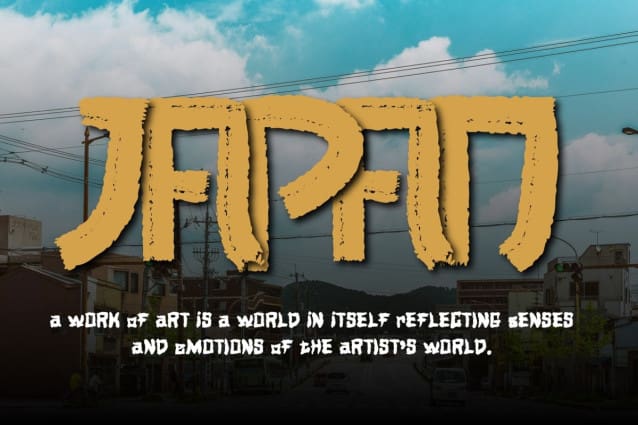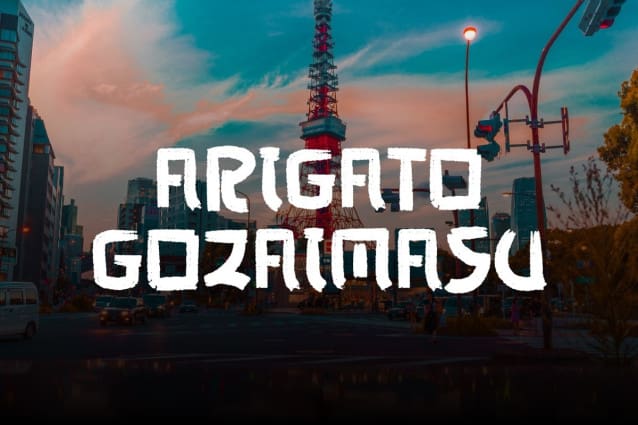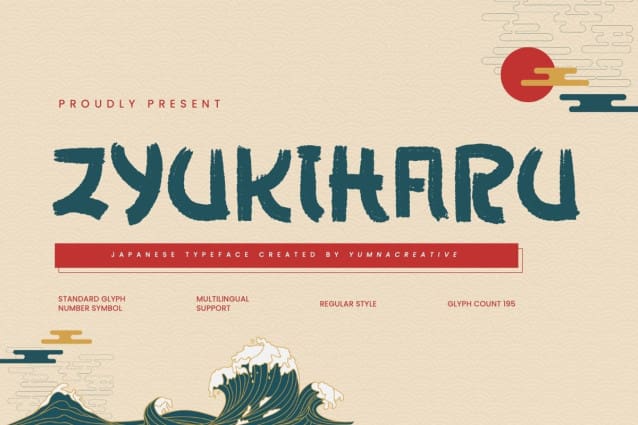
Zyukiharu Japanese Font
Zyukiharu Japanese Font is a stylish and modern Japanese font with smooth, clean lines. It combines traditional Japanese calligraphy with a contemporary feel, making it perfect for both elegant and casual designs.